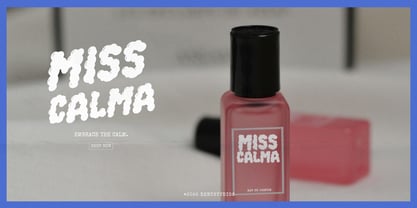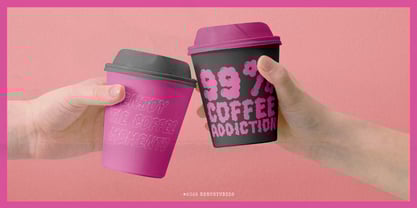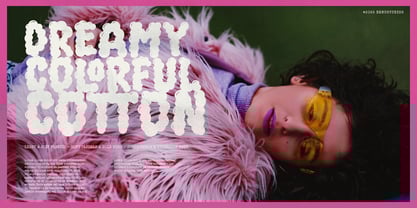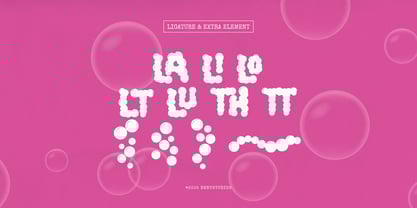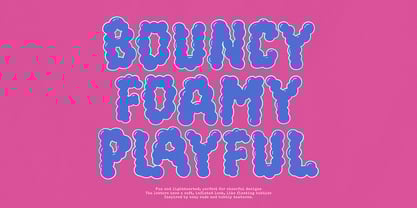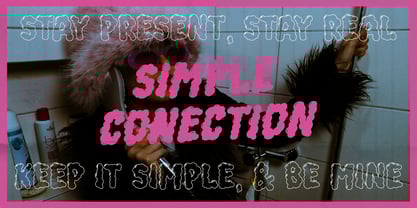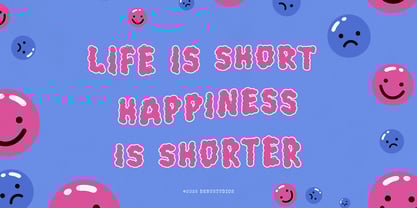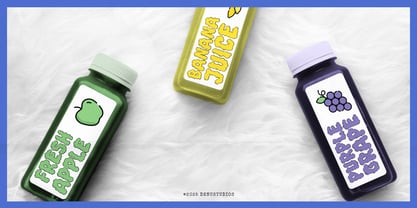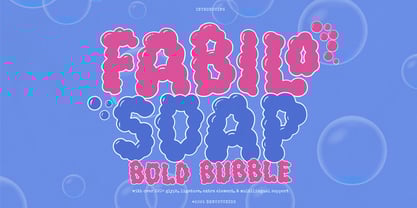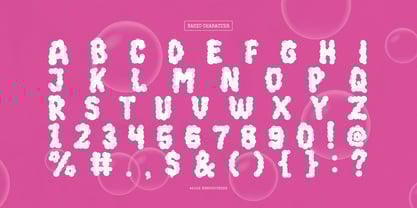
Fabilo Soap
by Denustudio
The Fabilo Soap Font Family was designed by Dede Nugraha and published by Denustudio. Fabilo Soap contains 2 styles and family package options.
Fabilo Soap | Bold Bubble Font, from Denustudios, suitable for any projects such as: logos, branding projects, homeware designs, product packaging, mugs, quotes, posters, shopping bags, t-shirts, book covers, name card, invitation cards, greeting cards, label, photography, watermark, special events, and all your other lovely projects that need Bold Bubble Font a taste.
• Regular and Italic
• Standard glyphs
• Alternate and Ligature
• Fonts include multilingual support